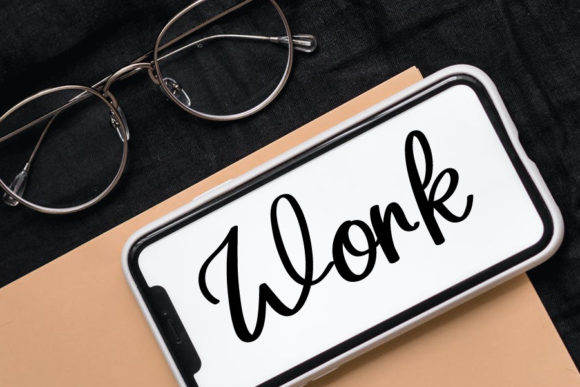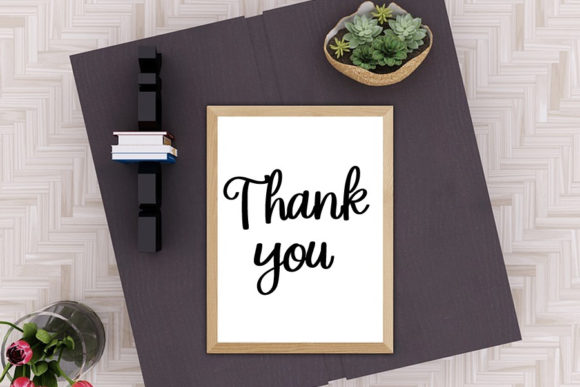
Story Font
About Story Font
“Story” is a fresh and beautiful handwritten font that adds a delightful and modern touch to various design applications. This versatile typeface is well-suited for enhancing visuals such as YouTube banners, cover logo mockups, wedding invitations, ID cards, flyers, crafts, and more. With its unique and charming style, “Story” brings a distinct and appealing aesthetic to your designs, contributing to the progress and development of your business or creative projects.
In the context of YouTube banners and cover logo mockups, “Story” introduces a fresh and contemporary vibe. The handwritten charm of the font adds a personalized touch, making your banners and logos stand out with creativity and style.
For wedding invitations, “Story” offers a beautiful and modern aesthetic that complements the elegance of the occasion. The font enhances the overall design, creating invitations that are not only informative but also visually captivating and sophisticated.
In ID cards and flyers, “Story” contributes to a professional yet stylish appearance. The font’s fresh and beautiful design ensures that the information presented is not only clear but also visually engaging, leaving a positive and lasting impression.
Craft projects benefit from the font’s versatility, allowing for creative and eye-catching designs. “Story” adds a touch of uniqueness to crafts, making them more appealing and distinctive.
The font’s application extends to various other design projects, making it a valuable asset for businesses looking to progress and develop. Its contemporary and fresh appeal communicates a sense of modernity, ensuring that your brand remains relevant and appealing to a diverse audience.
In summary, “Story” is more than just a font; it’s a fresh and beautiful tool that enhances a wide range of design projects. Its versatility makes it suitable for businesses and creatives seeking to infuse their visuals with a modern and stylish aesthetic. Incorporate “Story” into your designs to achieve a fresh and appealing look, contributing to the progress and development of your brand or creative endeavors.